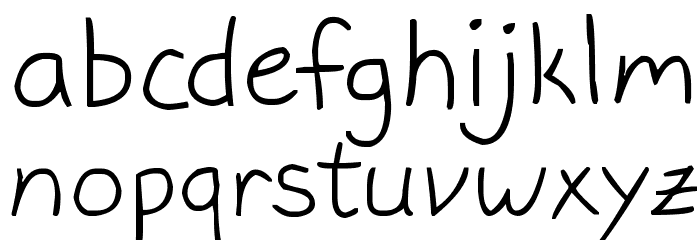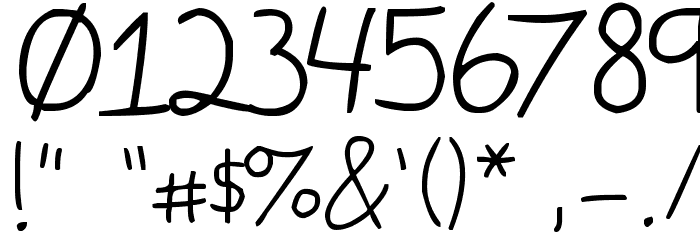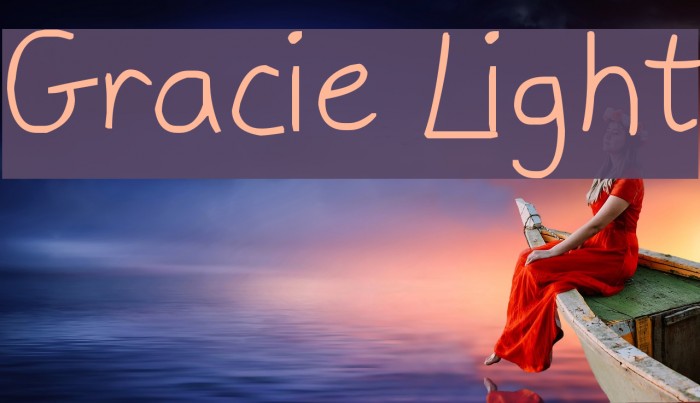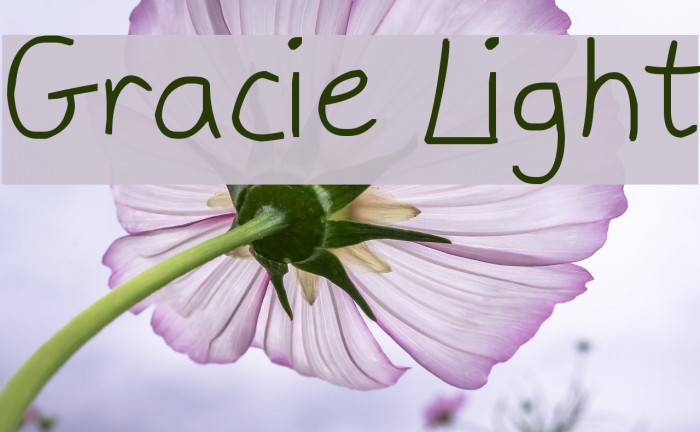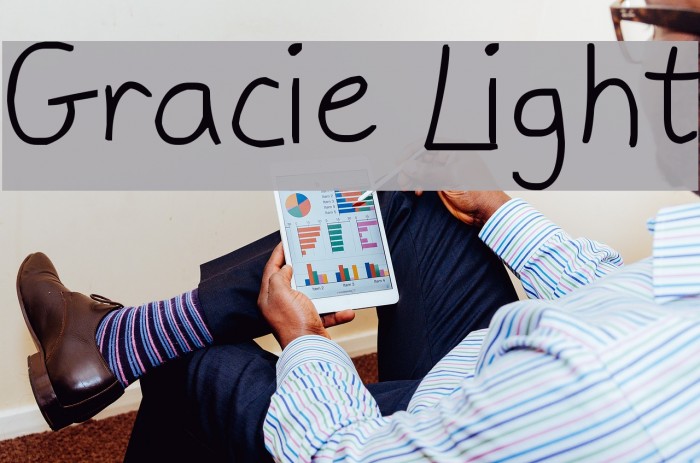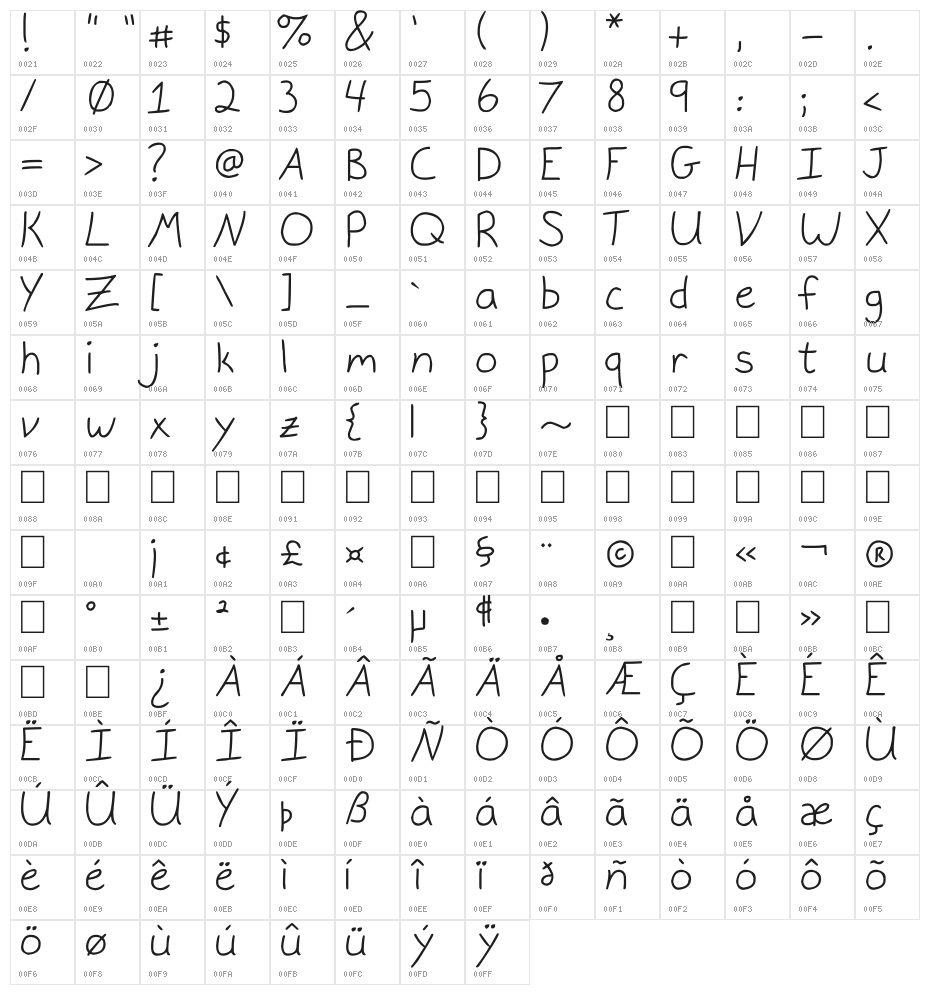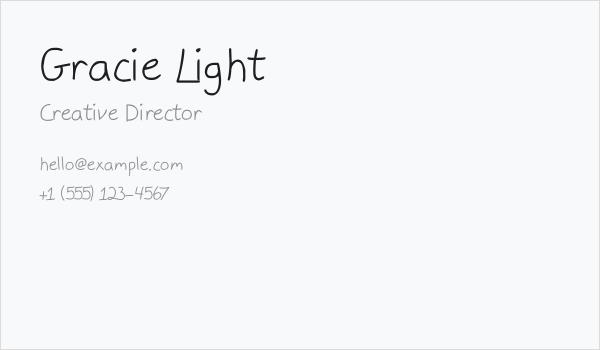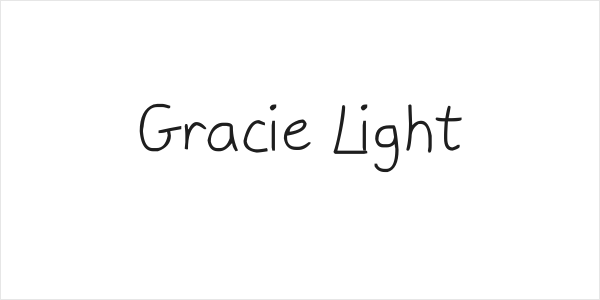
Gracie Light Font
This font features a playful and casual handwritten style, characterized by its smooth, flowing lines and slightly irregular shapes. The uppercase letters are tall and slender, while the lowercase letters maintain a consistent height, giving it a friendly and approachable appearance. The numerals are rounded and easy to read, complementing the overall informal aesthetic. Special characters are well-integrated, maintaining the same playful tone. This font is ideal for projects that require a personal touch or a relaxed vibe.
A playful, casual handwritten font with smooth, flowing lines.
- Proposed Projects: Great for greeting cards, children's books, personal blogs, and informal branding.
- Overall Style: Casual
- Use Case: Logos, Headlines, Informal Text